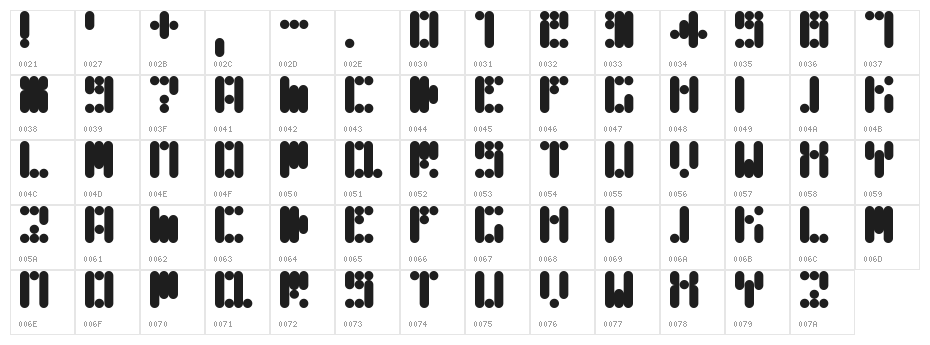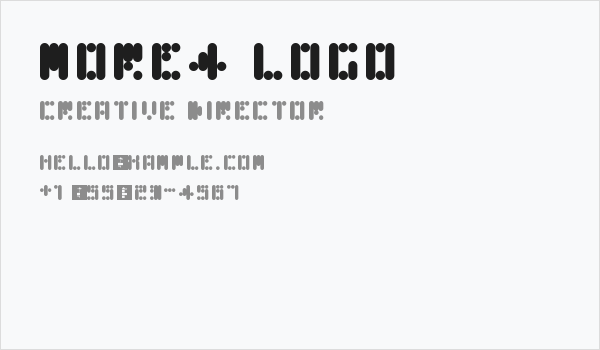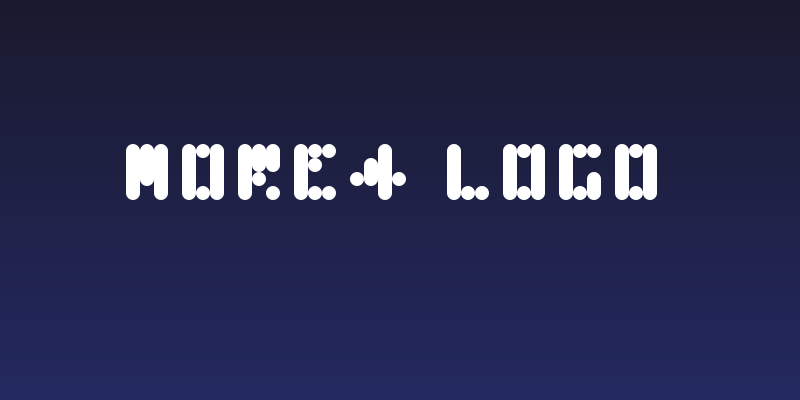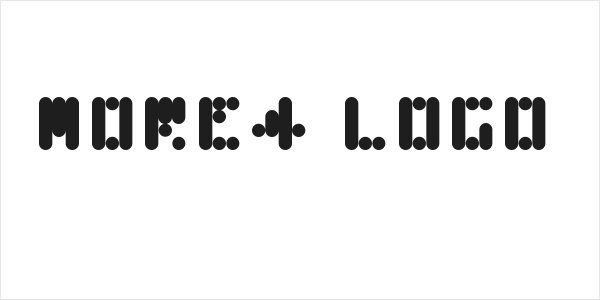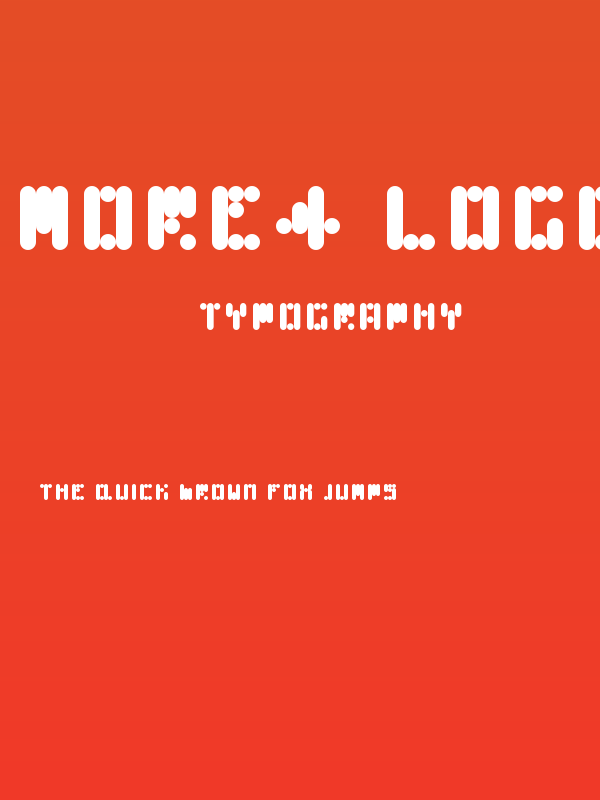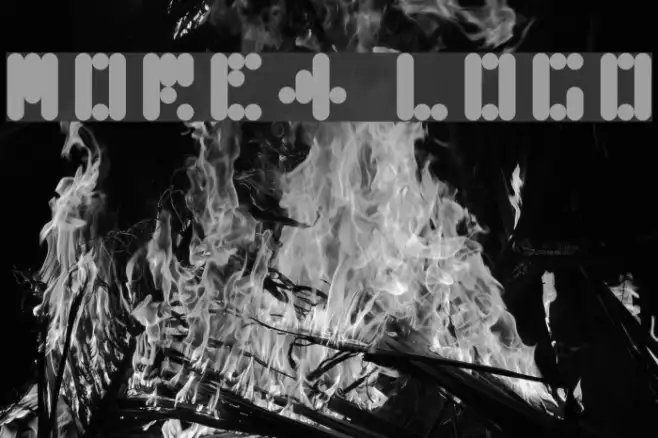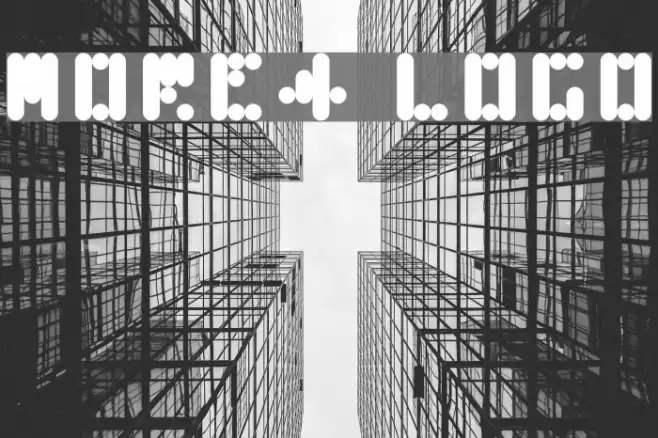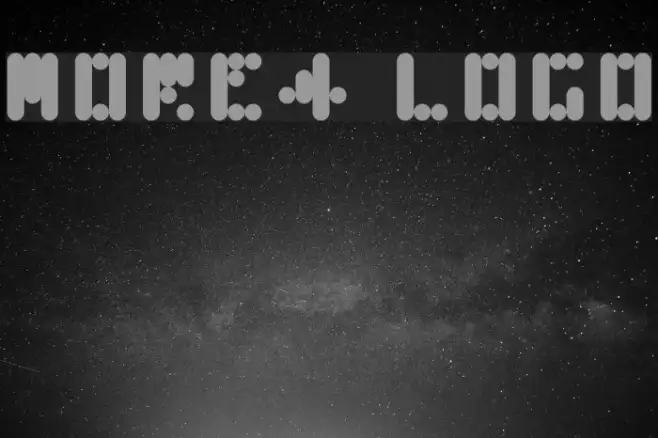
More4 Logo Font
More4 Logo Description
This font features a unique, modern design with bold, rounded shapes that create a playful and futuristic appearance. Each character is composed of circular elements that form the letters and numbers, giving it a distinct and eye-catching look. The font is highly decorative, making it ideal for creative projects that require a standout typeface. The uniformity in the circular design elements across all characters ensures a cohesive visual style, while the boldness of the strokes adds to its striking presence. This font is particularly suitable for digital media, branding, and advertising where a modern and innovative aesthetic is desired.
| Use Case | Logos, Headlines, Digital Media |
| Proposed Projects | Ideal for branding, digital media, advertising, and creative projects requiring a standout typeface. |
| Author | Fonts by Måns Grebäck |